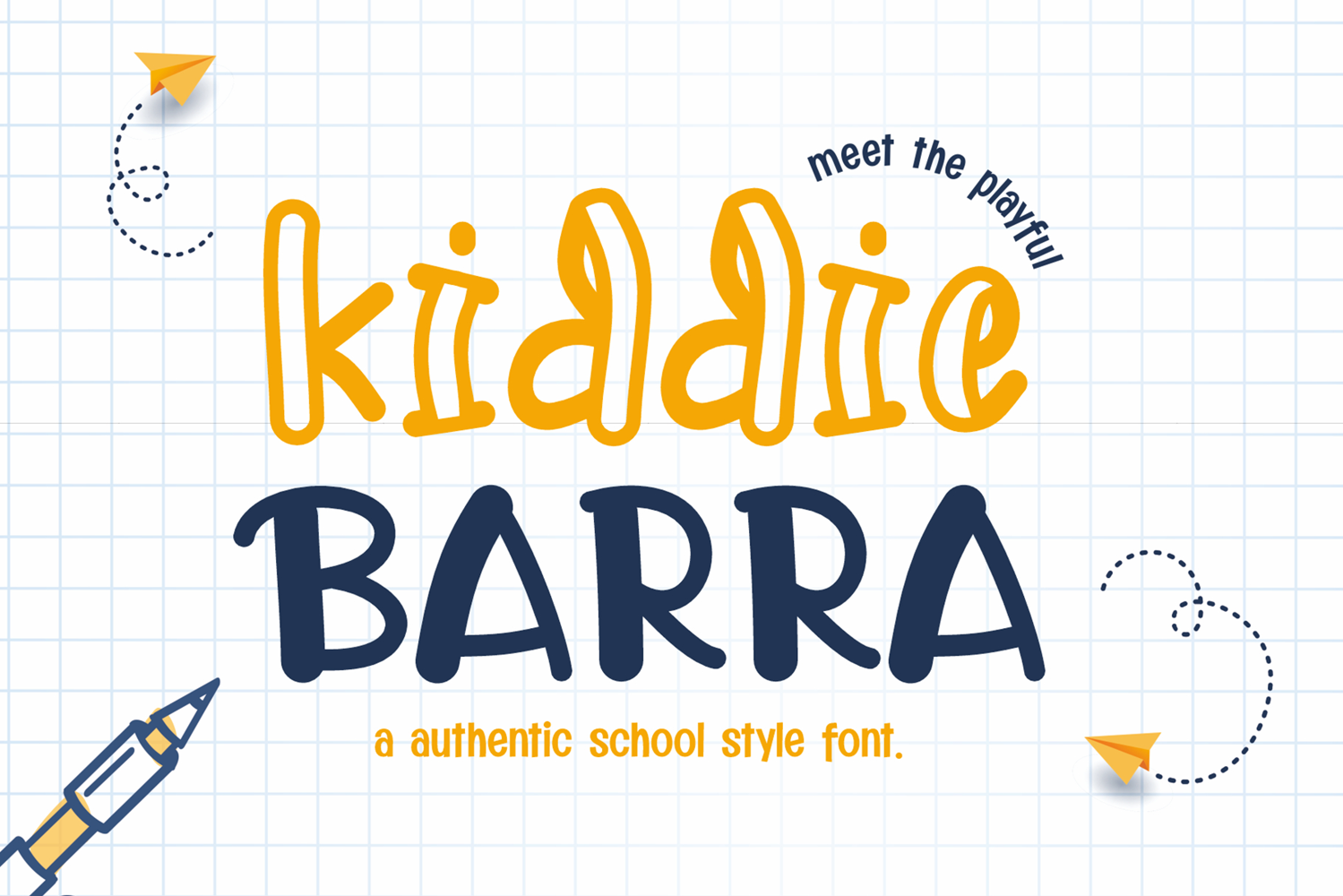
Kiddie Barra Authentic School Style Font
Kiddie Barra is a playful school-style font that captures the charm of children’s handwriting. Designed in two styles—Regular and Hollow—it offers flexibility for creating cheerful, fun, and educational-inspired designs. With its rounded shapes and casual strokes, Kiddie Barra is perfect for classroom materials, children’s books, posters, and back-to-school projects.
Whether you want to design worksheets, greeting cards, or colorful social media content, Kiddie Barra delivers a warm, friendly, and authentic feel. Its versatility makes it suitable for both print and digital platforms, helping your creative projects shine with a school-inspired vibe.